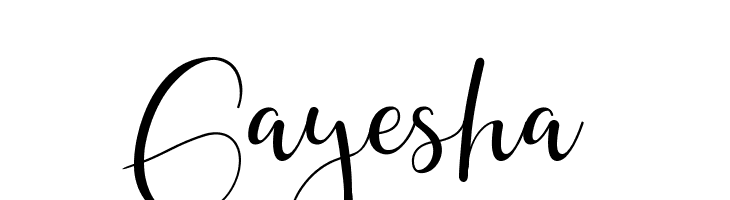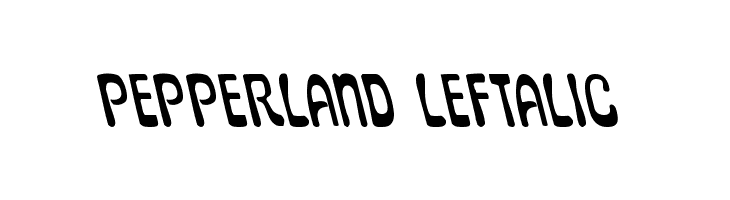
A playful, bold font with a leftward slant and rounded characters.
A flowing, cursive script font with a natural handwriting style.
A vintage, decorative font with bold, artistic strokes and a handcrafted appearance.
A playful and flowing script font with elegant curves and continuous strokes.
A playful, handwritten font with tall, narrow letters and smooth strokes.
A futuristic, hollow font with geometric and angular designs.
A pixelated, blocky font with a retro digital aesthetic.
A bold, playful font with rounded edges and a whimsical style.
A bold, geometric font with a halftone effect and blocky structure.
A playful, rounded font with smooth curves and a friendly appearance.